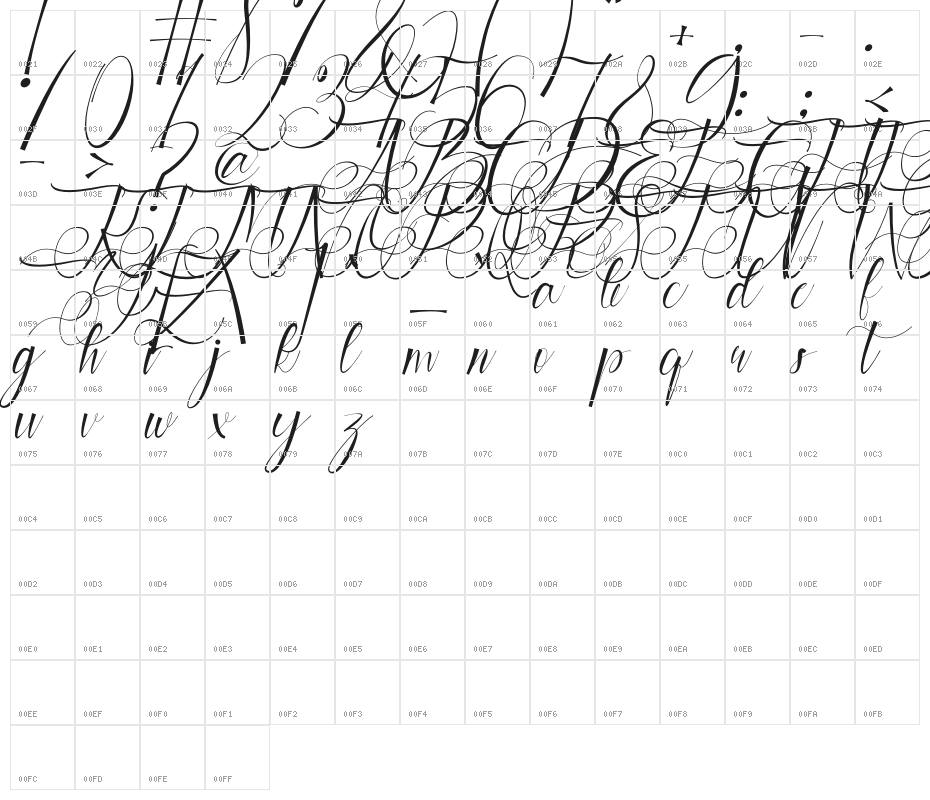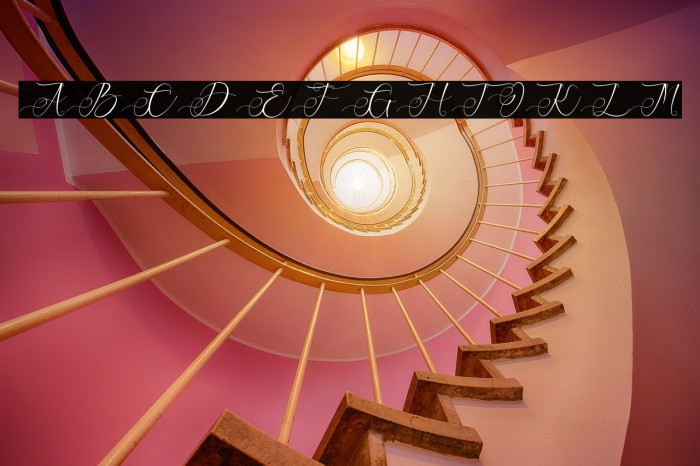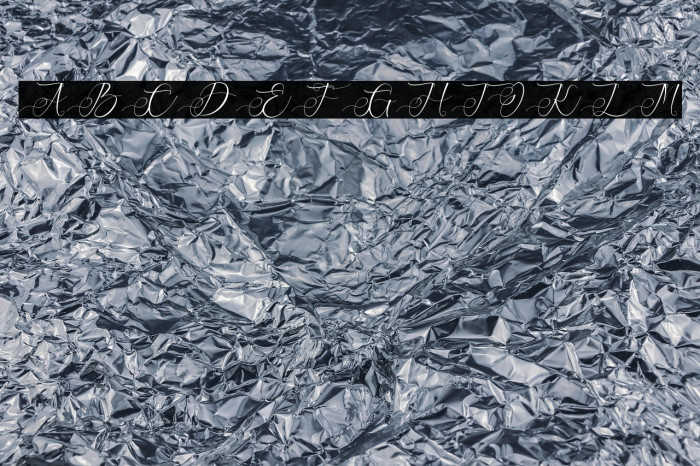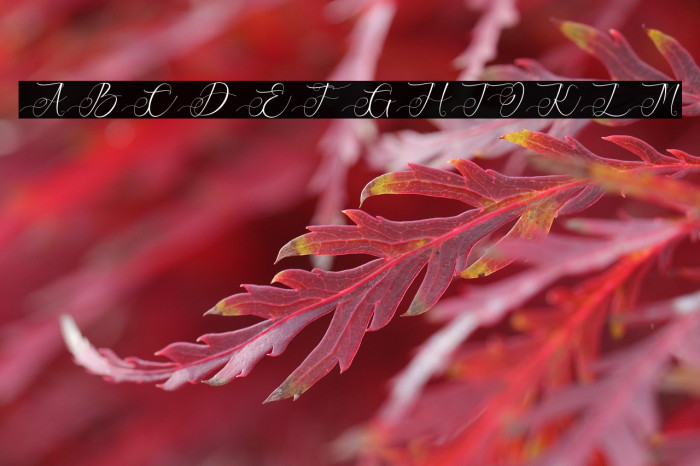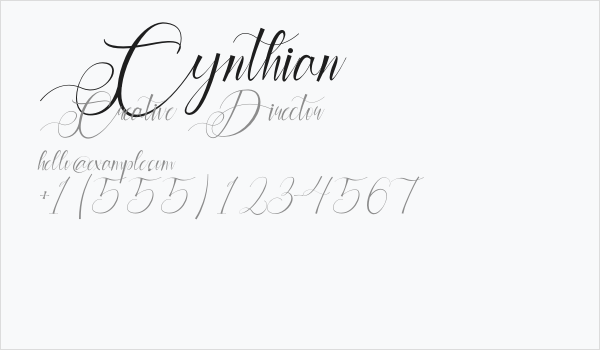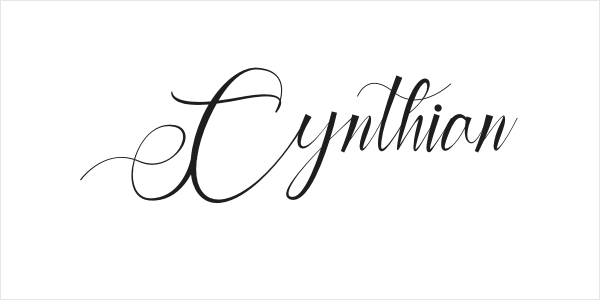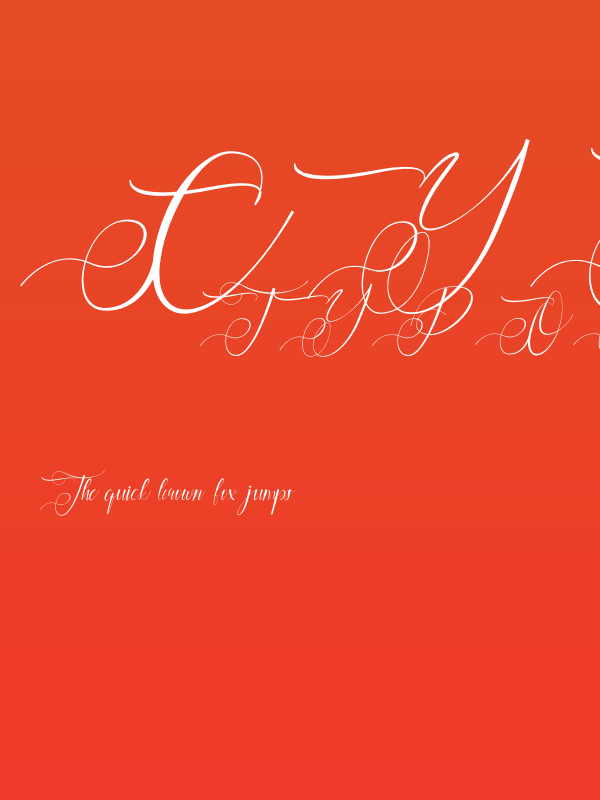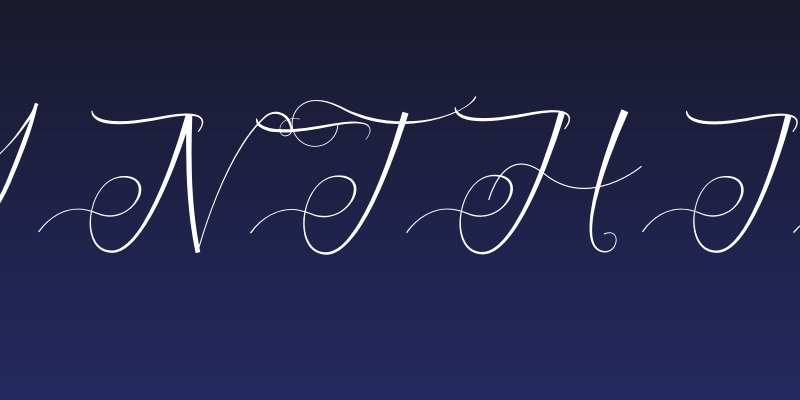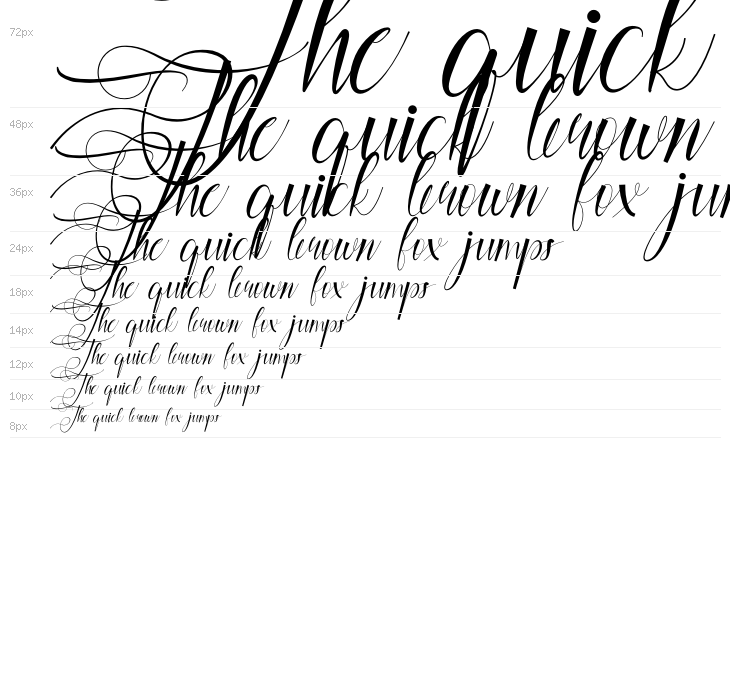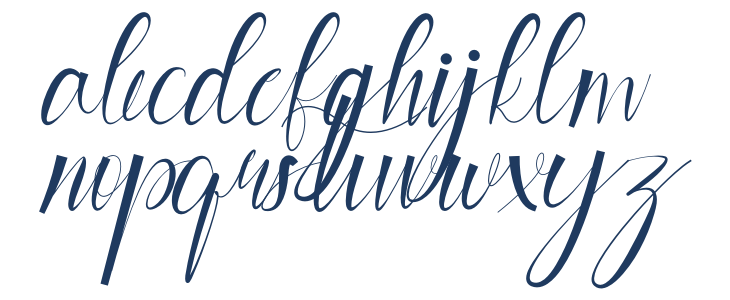
Cynthian Font
Cynthian Description
This font features an elegant and flowing script style, characterized by its intricate and decorative swashes. The uppercase letters are particularly ornate, with loops and flourishes that give a sense of movement and sophistication. The lowercase letters maintain a consistent style, with smooth, connected strokes that enhance readability while retaining an artistic flair. The numerals are designed to match the script's elegance, with curved lines and subtle embellishments. Special characters are thoughtfully integrated, maintaining the overall aesthetic. This font is perfect for projects that require a touch of elegance and sophistication.
| Use Case | Logos, Invitations, Decorative headings |
| Proposed Projects | Ideal for wedding invitations, luxury branding, elegant packaging, and decorative headings. |